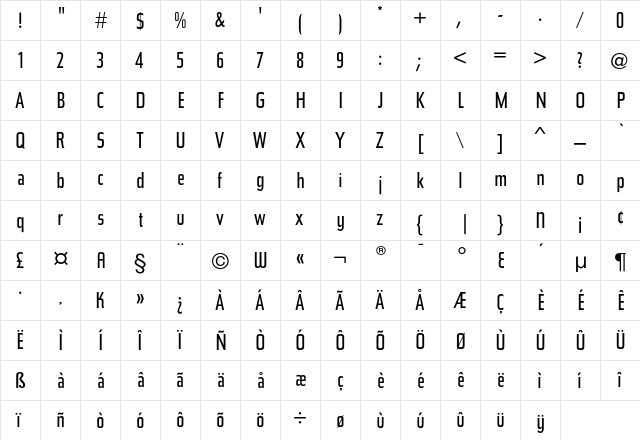
BauerTopic Medium
Design Context for BauerTopic Typeface
BauerTopic offers clean, dependable letterforms without strong stylistic allegiance, making it a practical choice for designers who need flexibility.